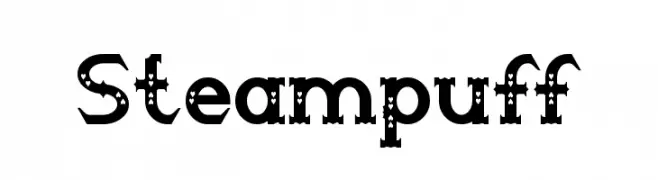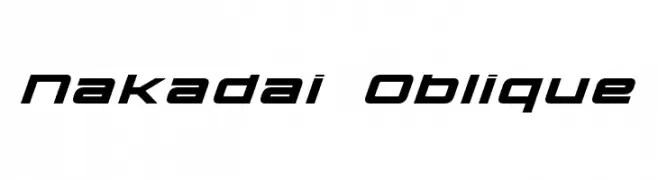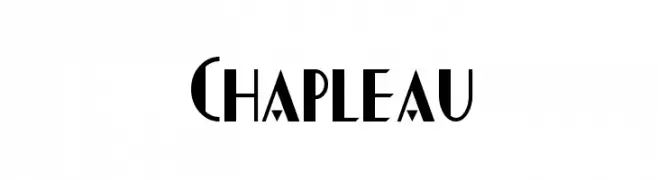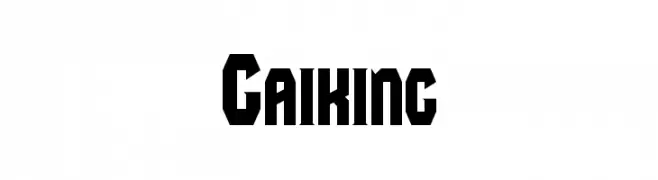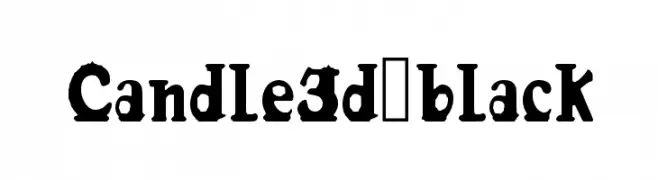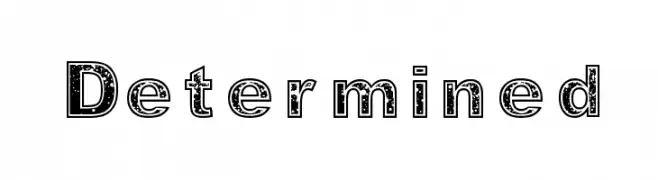
A bold, decorative font with steampunk-inspired gear embellishments.
A modern, oblique font with a bold, geometric style and tight spacing.
An intricate, decorative font with mystical and fantasy-inspired symbols.
A bold, geometric font with sharp angles and a modern aesthetic.
A bold, futuristic font with angular, geometric shapes.
A bold, geometric font with sharp, angular edges and a futuristic feel.
A bold, hand-drawn font with a playful, cartoon-like relief effect.
A bold, distressed font with a textured, grunge effect for a rugged, vintage look.